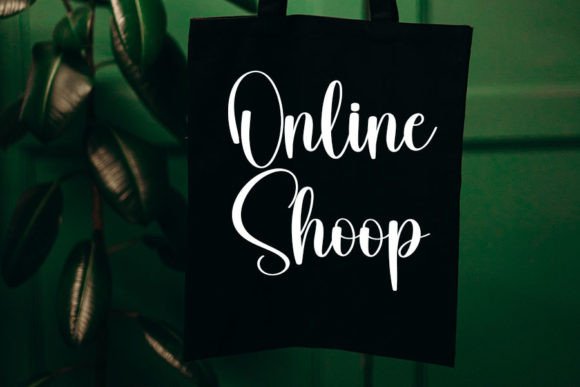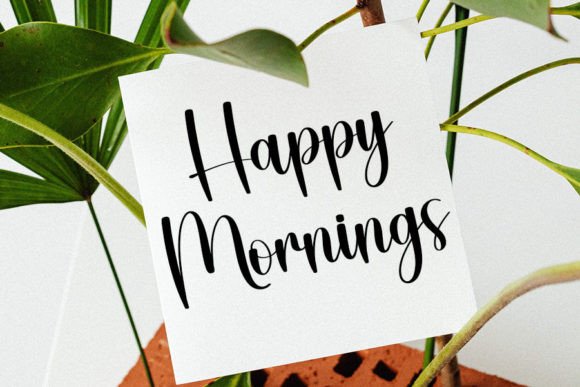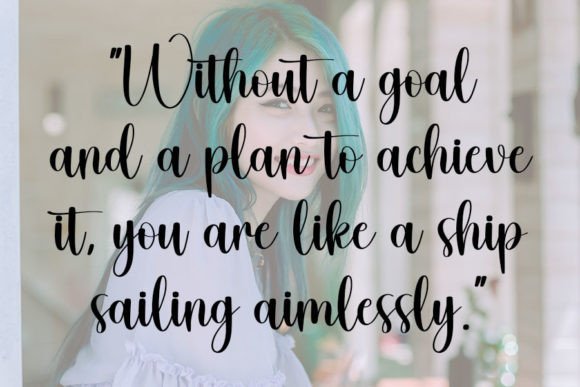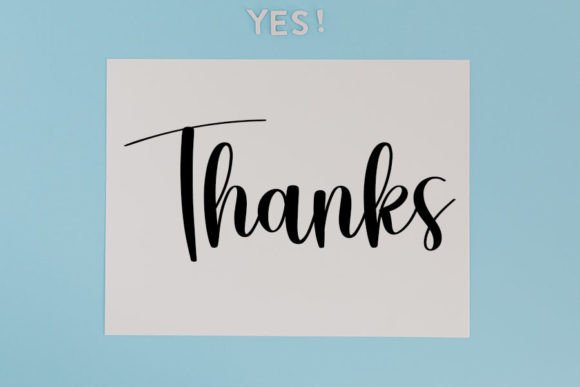
The Font that Stole My Heart: A Deep Dive into Graceful
I still remember the design project that led me to discover the Graceful font. I was working on a handmade card for a friend’s birthday, and I was struggling to find the perfect font to convey the warmth and personality I wanted. That’s when I stumbled upon Graceful, a simple yet friendly handwritten font that instantly became my go-to. In this article, I’ll share my love for this font, its features, and how to make the most of it in various design platforms.
An Honest Review of Graceful
What I Love About Graceful ✨
- ✅ Simple and friendly handwritten style that’s perfect for various design projects
- ✅ Works well for both digital and print designs
- ✅ Easy to pair with other fonts for a unique look
- ⚠️ Limited character set compared to some other fonts
- ⚠️ Not suitable for very formal or corporate designs
The Story Behind Graceful
While I couldn’t find any information on the exact origin of Graceful, I like to imagine that it was created by a designer who wanted to craft a font that would bring warmth and personality to various design projects. Perhaps they were inspired by the beauty of handwritten letters and the joy of creating something with their own hands.
| Font Name | Graceful Font |
| Author | Harlek studio |
| Q: What type of projects is Graceful suitable for? | A: Graceful is versatile and can be used for various projects, such as crafts, digital designs, presentations, and greeting cards. |
| Q: Can I pair Graceful with other fonts? | A: Yes, Graceful can be paired with other fonts to create a unique look. Experiment with different font combinations to find the perfect match. |